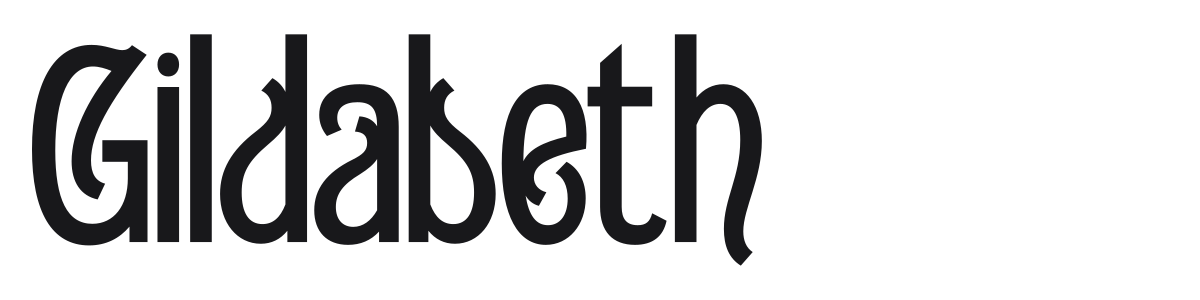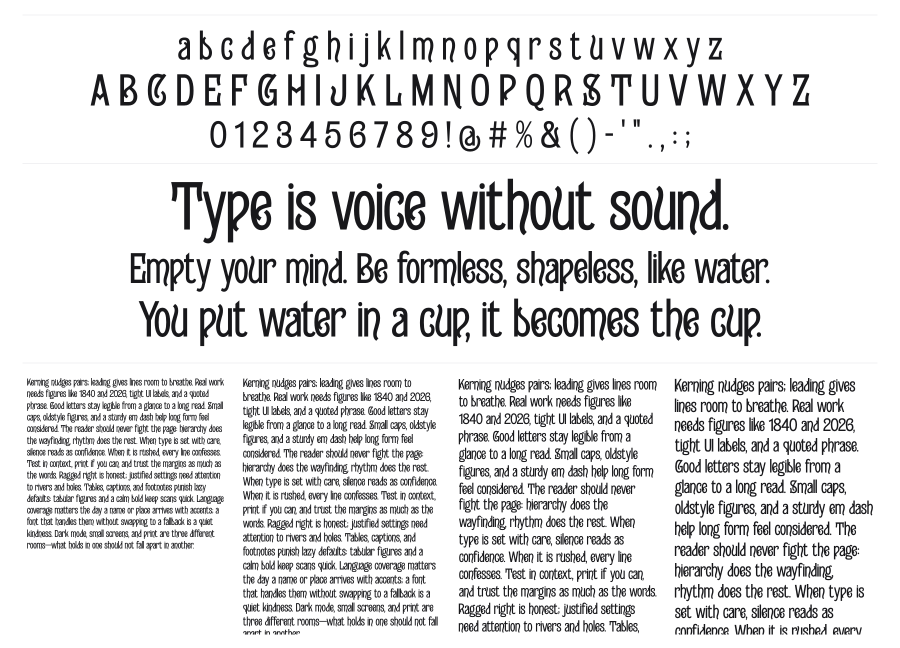
Gildabeth
Gildabeth is a narrow high-contrast sans-serif rooted in the eccentric display lettering of the late 19th century. Its strokes swell and taper with theatrical confidence, drawing on Victorian showbill faces like Campanile while feeling sharp enough for contemporary use. Tight proportions and bold modulation make it a natural choice for headlines, book covers, and branding that wants presence without resorting to the obvious.